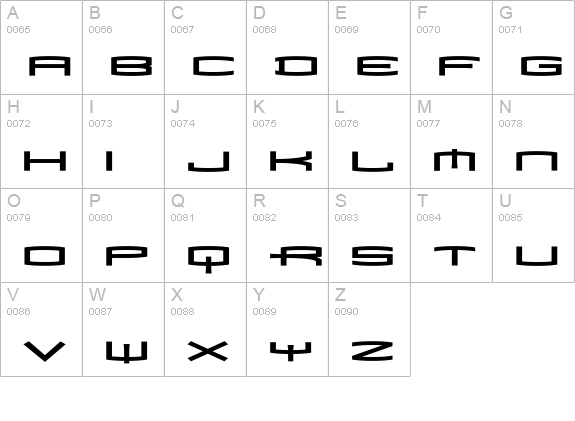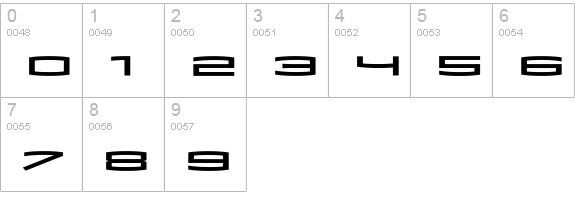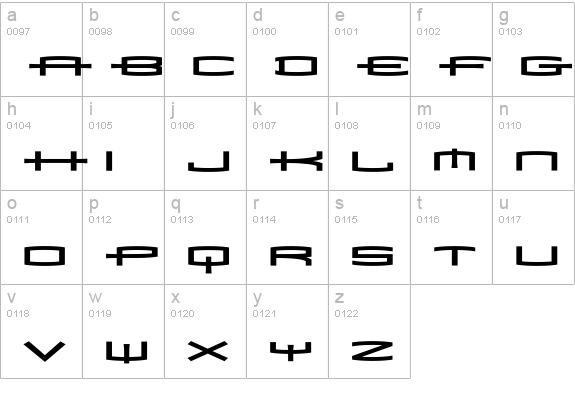
MataRegBold Font Details
MataRegBold font is a stunning display typeface that exudes elegance and sophistication. With its clean lines and bold design, this font is perfect for adding a touch of modernity to any project. Whether you're working on a logo, website design, or promotional materials, MataRegBold will make your text stand out and grab attention. What sets MataRegBold font apart is not just its remarkable aesthetic appeal, but also the fact that it is available for free. Yes, you read that right! This font is freely available to download at FontsMarket.com, a reputable online platform for high-quality fonts. This means that you can add this striking font to your collection without breaking the bank. The versatility of MataRegBold font is another reason why it is a must-have for designers. It can be used for both headings and body text, allowing you to create a cohesive and visually pleasing layout. The bold weight of this font ensures that your message is delivered with impact, while the clean and distinct letterforms ensure legibility across various mediums. Whether you're a professional designer or an amateur enthusiast, MataRegBold font is a valuable asset that will elevate your creative projects. Its timeless design and free accessibility make it a font that will never go out of style. So why wait? Head over to FontsMarket.com and download MataRegBold font today to unleash your creativity and captivate your audience.